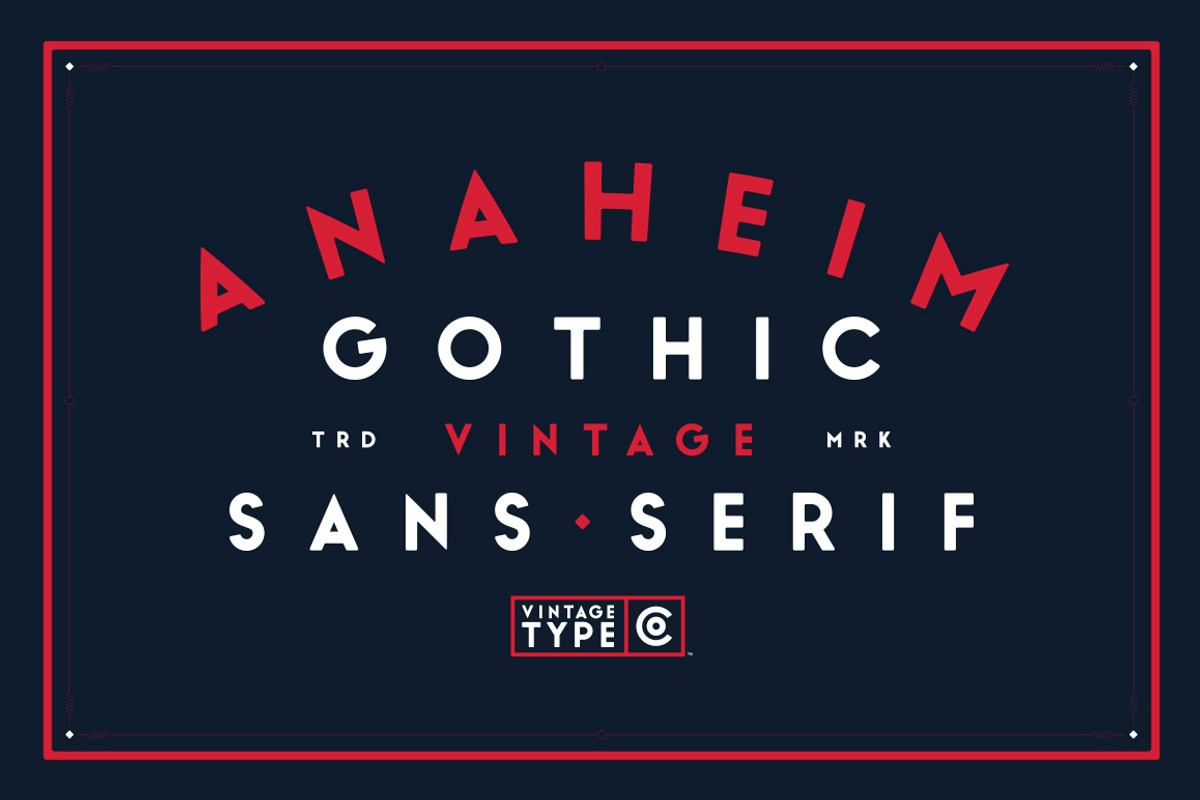
Anaheim Gothic Font Free Download
Anaheim Gothic Font Free Download is a bold, geometric sans-serif display typeface inspired by vintage logo and packaging designs. Its clean lines and robust character make it an excellent choice for projects requiring a strong visual impact, such as branding, posters, and merchandise.
Designed by the Vintage Type Company, Anaheim Gothic includes full uppercase and lowercase letters, basic ligatures, and multilingual support for languages including Breton, Catalan, Czech, Danish, Estonian, English, Finnish, French, German, Icelandic, Italian, Latvian, Lithuanian, Norwegian, Portuguese, Romanian, Scottish Gaelic, Slovak, Slovenian, Spanish, Swedish, Turkish, and Welsh.